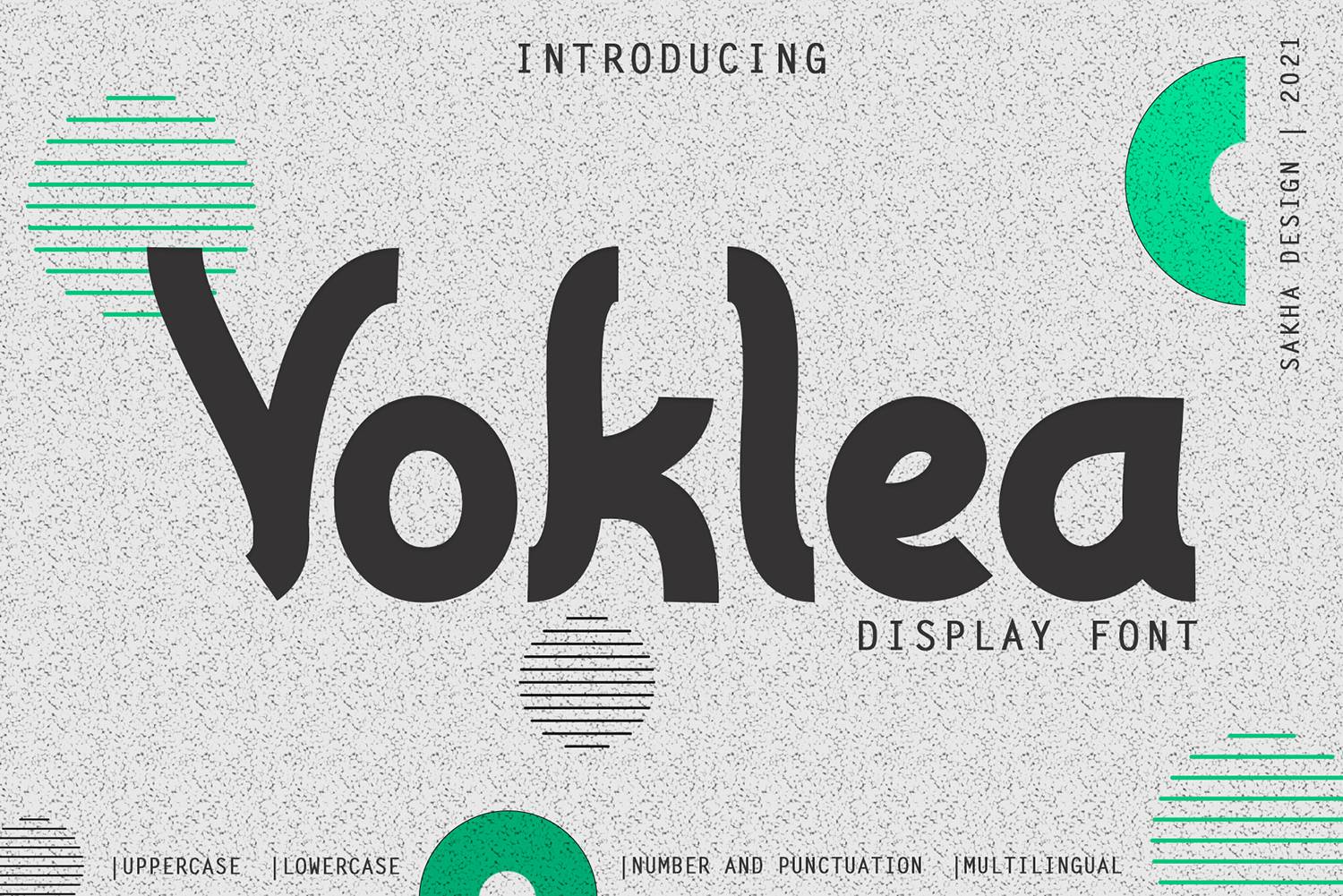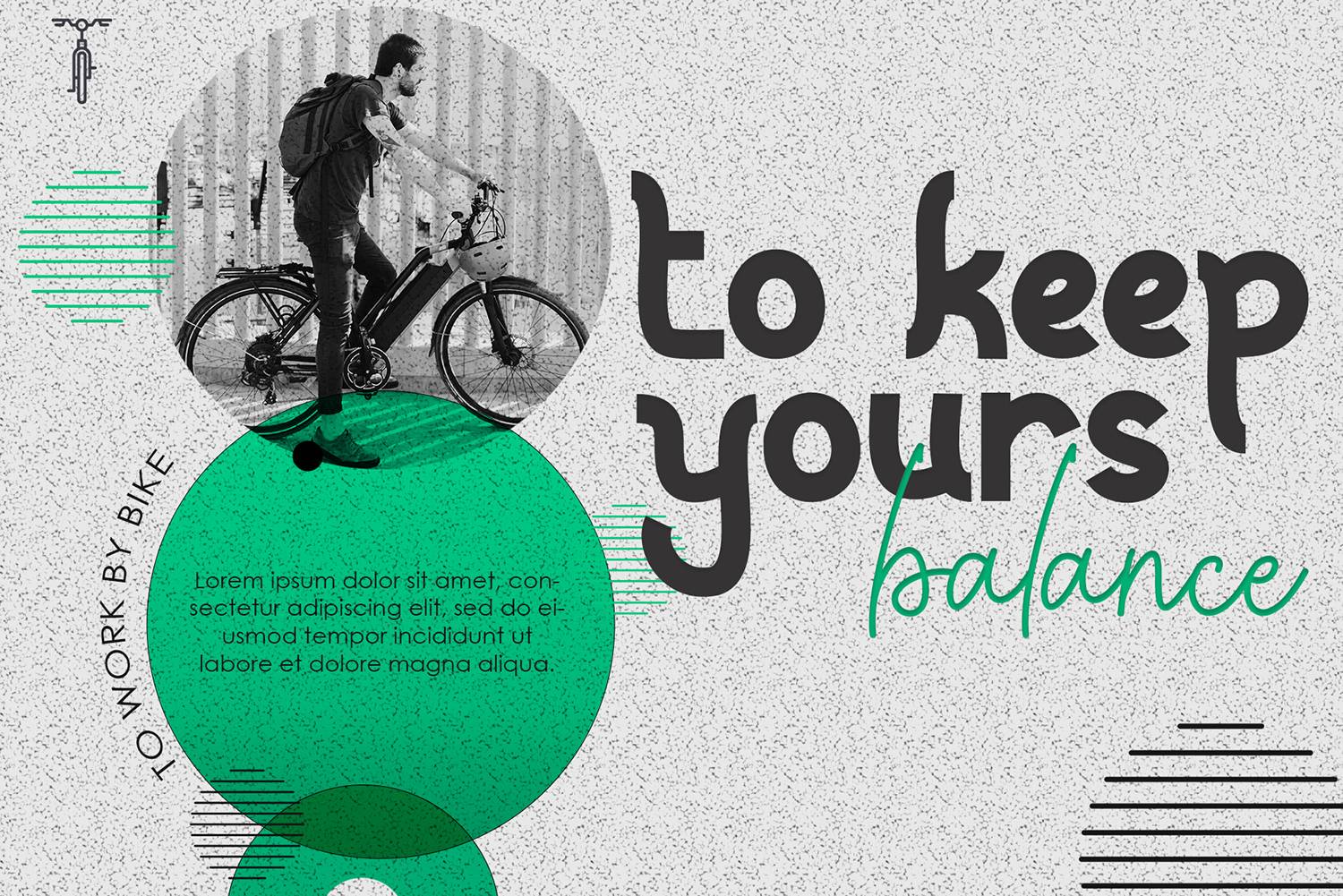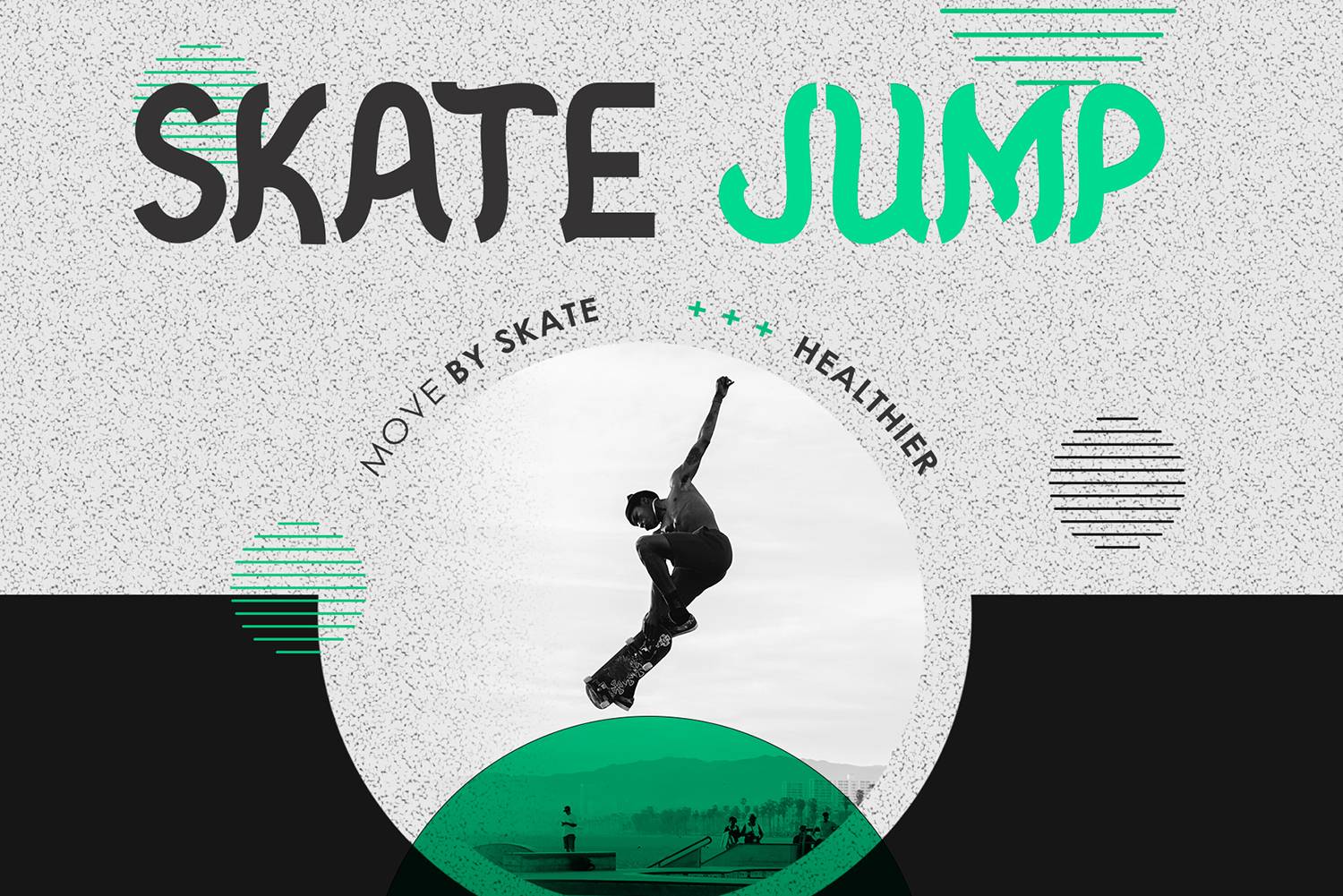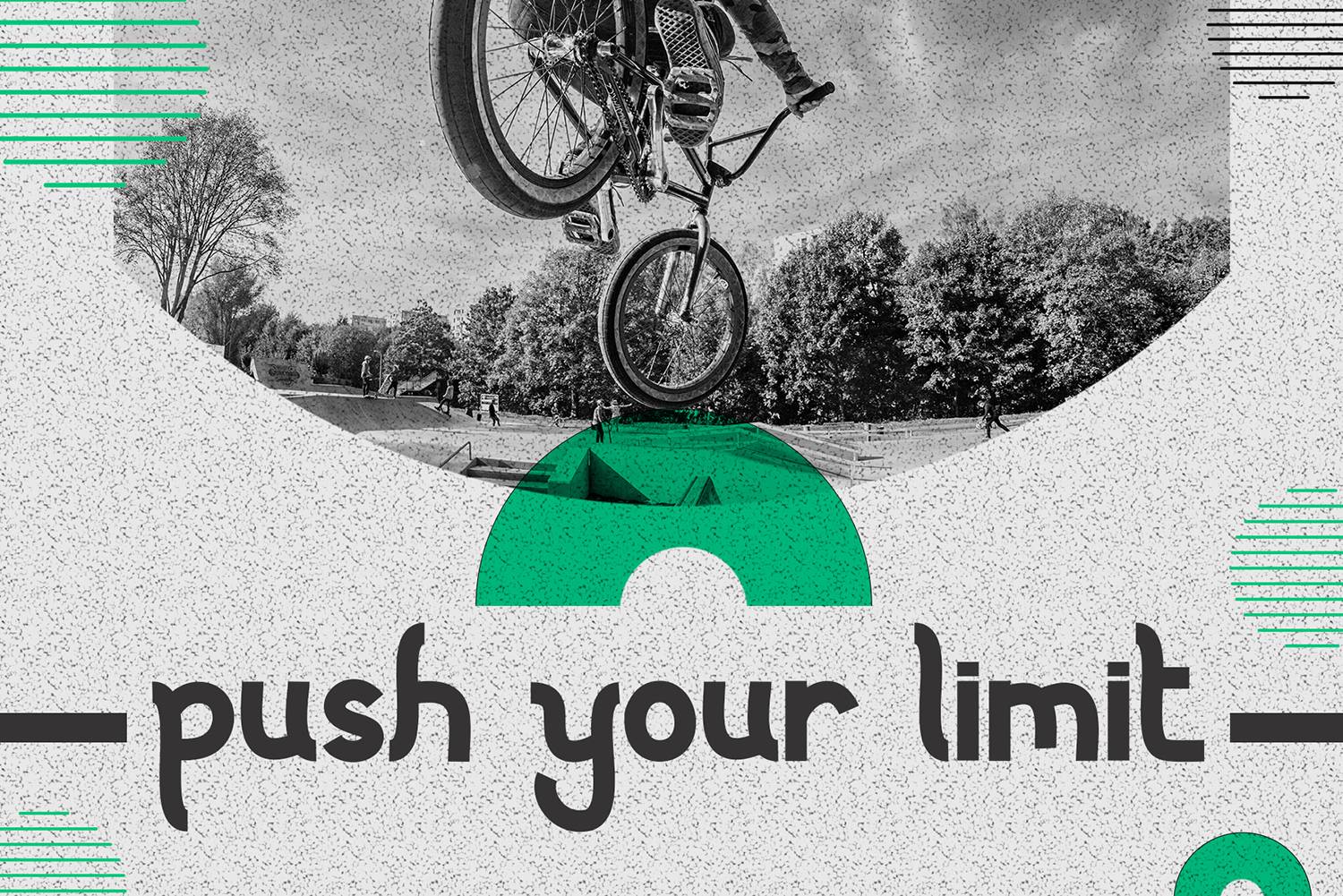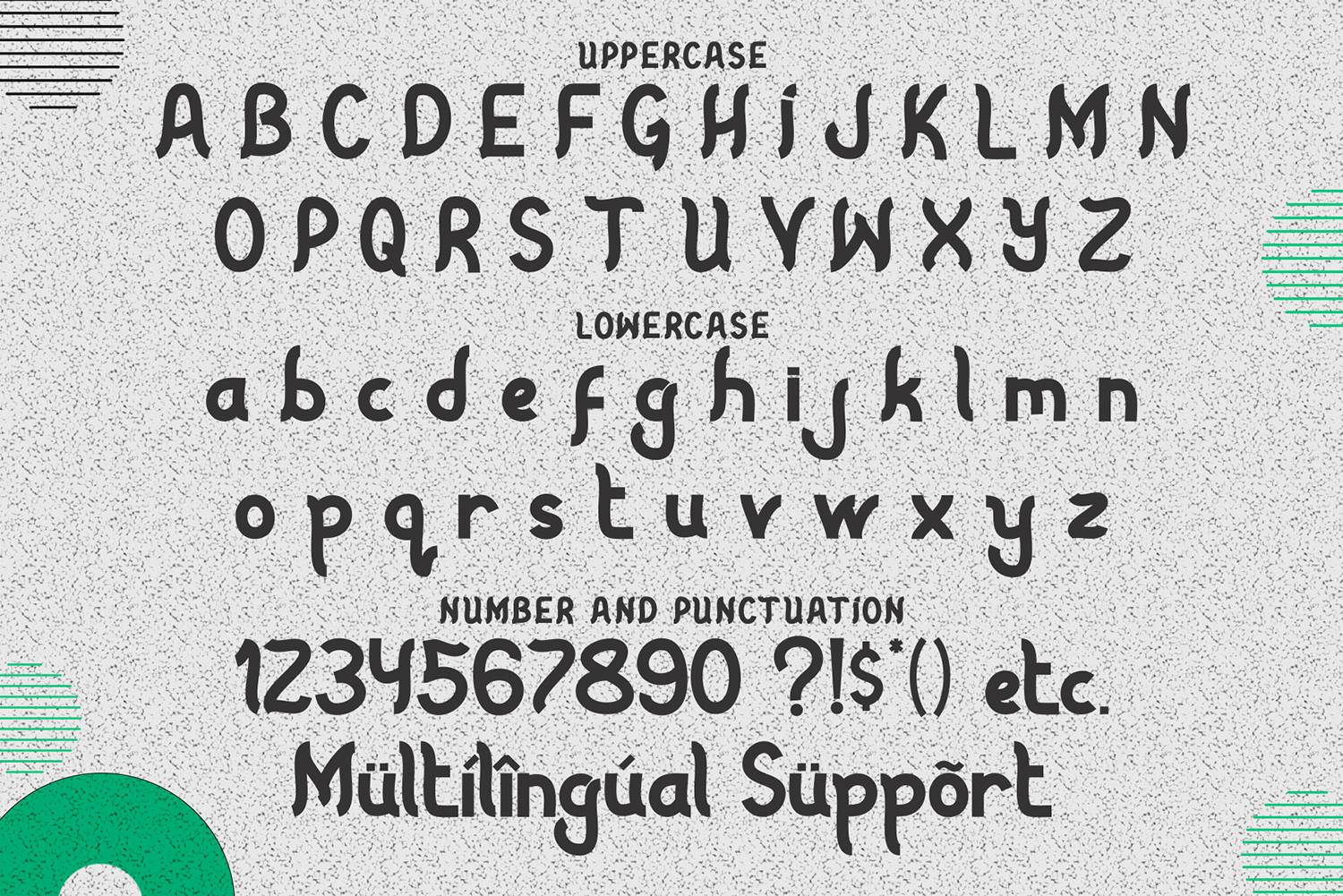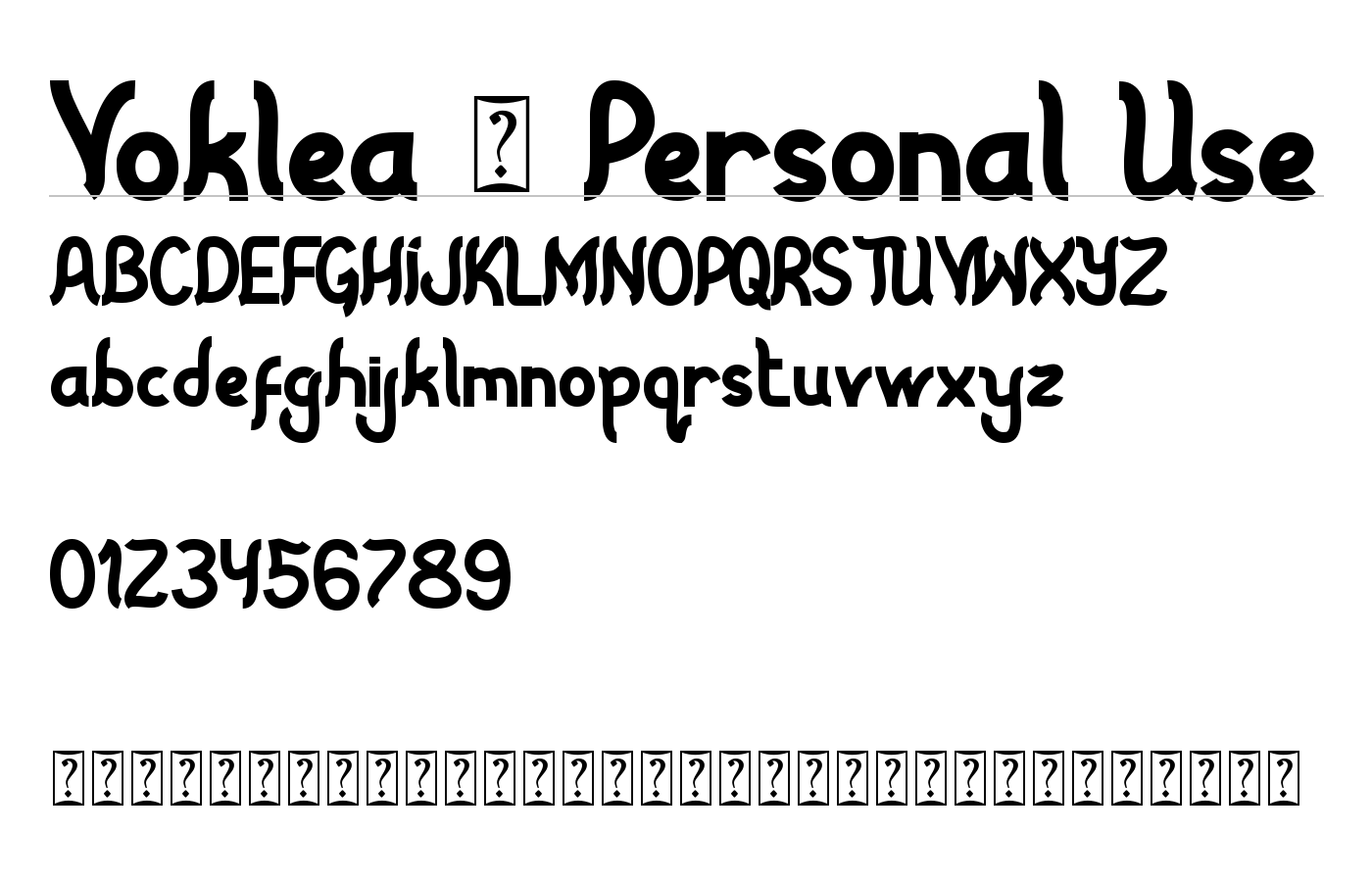
Voklea is a quirky and playful sans serif font with unique, rounded shapes and a lively rhythm that gives it a friendly and informal personality. Its moderate weight and distinctive character forms make it ideal for eye-catching headlines, creative branding, and fun packaging where a whimsical, approachable feel is desired. This font works well in projects that seek to stand out with character and cheerfulness without losing readability.
Voklea Font
About Voklea Font